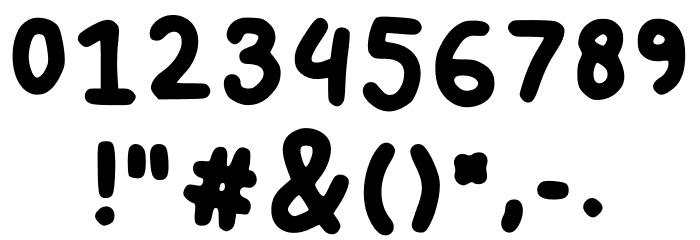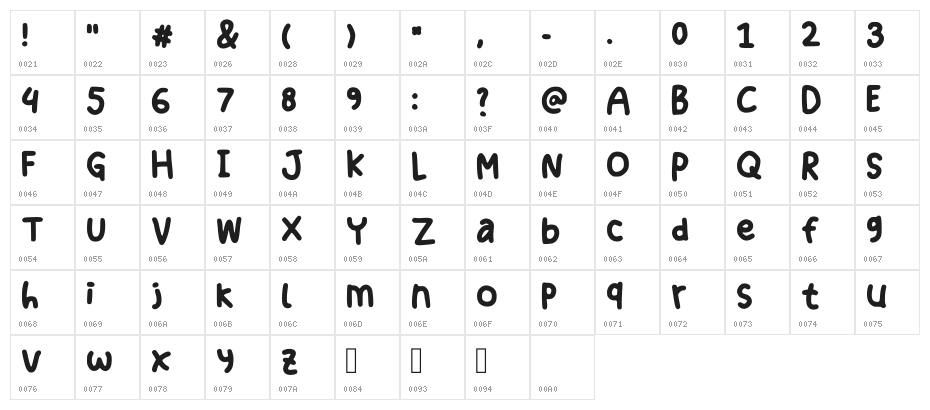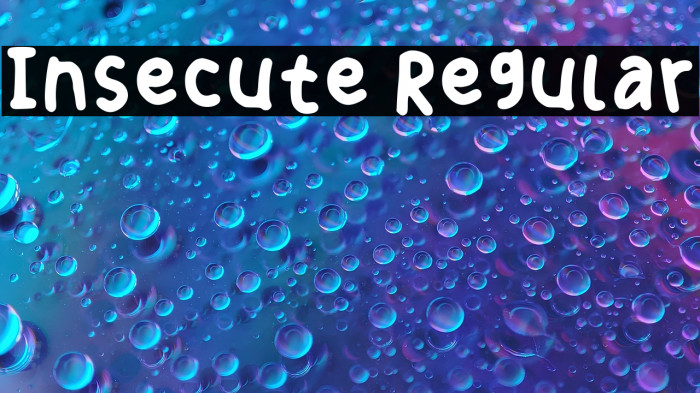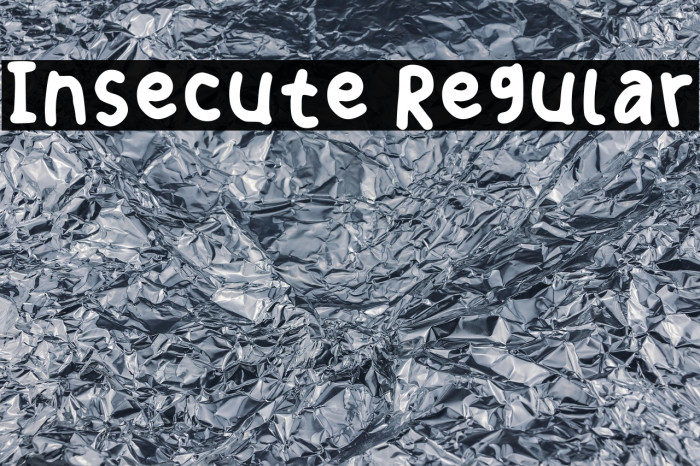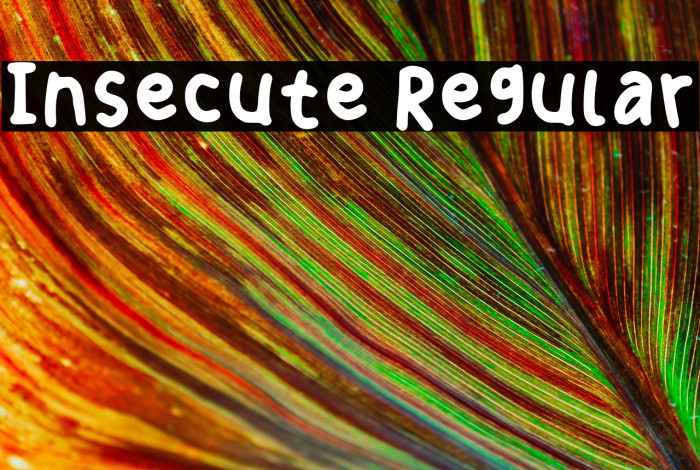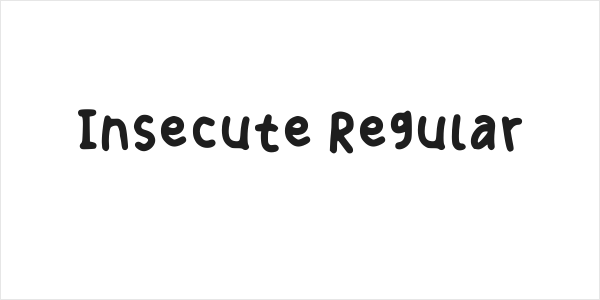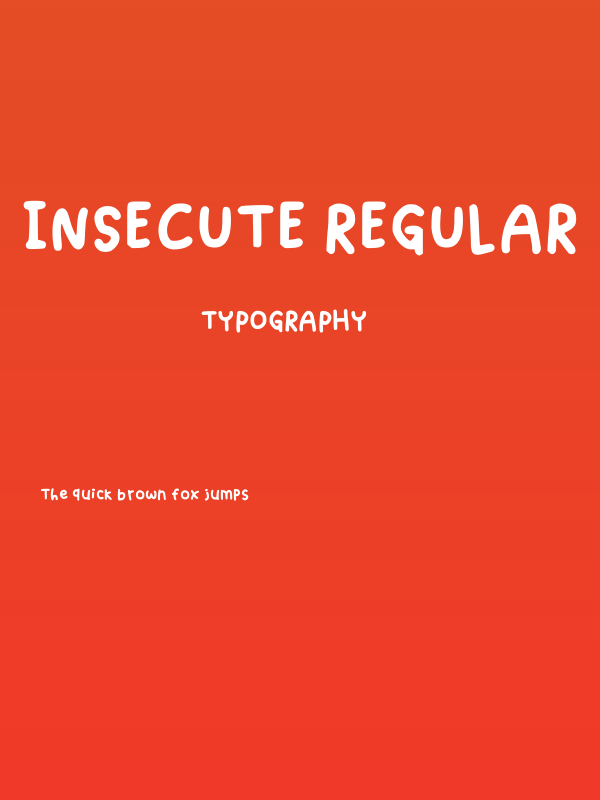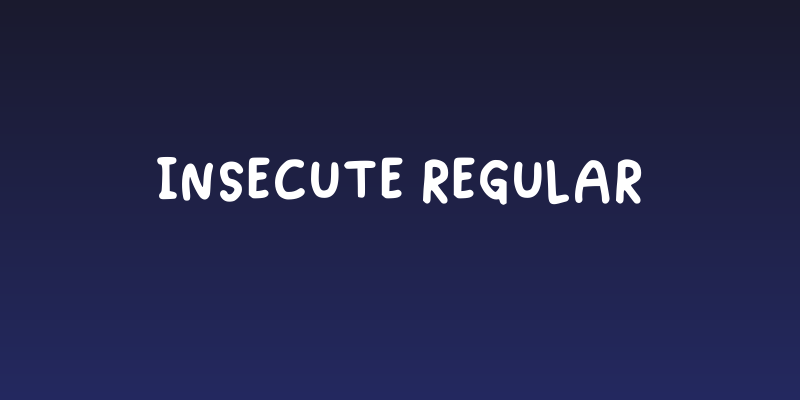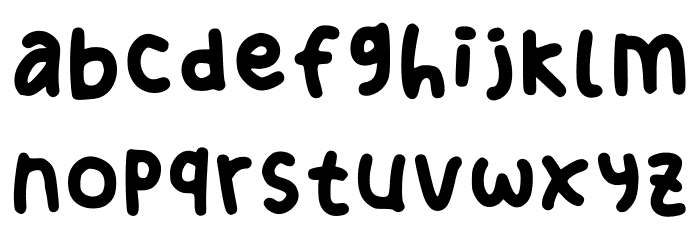
Insecute Regular Font
Insecute Regular Description
This playful and quirky font features bold, rounded characters with a hand-drawn aesthetic. Each letter has a slightly irregular shape, giving it a whimsical and informal feel. The strokes are thick and consistent, providing a strong visual presence. The font maintains a casual and approachable style, making it suitable for creative and fun projects. Its unique character design adds a touch of personality and charm, making it stand out in any design context. The numbers and special characters follow the same playful style, ensuring a cohesive look across all text elements.
| Proposed Projects | Ideal for children's books, playful branding, greeting cards, and informal invitations. |